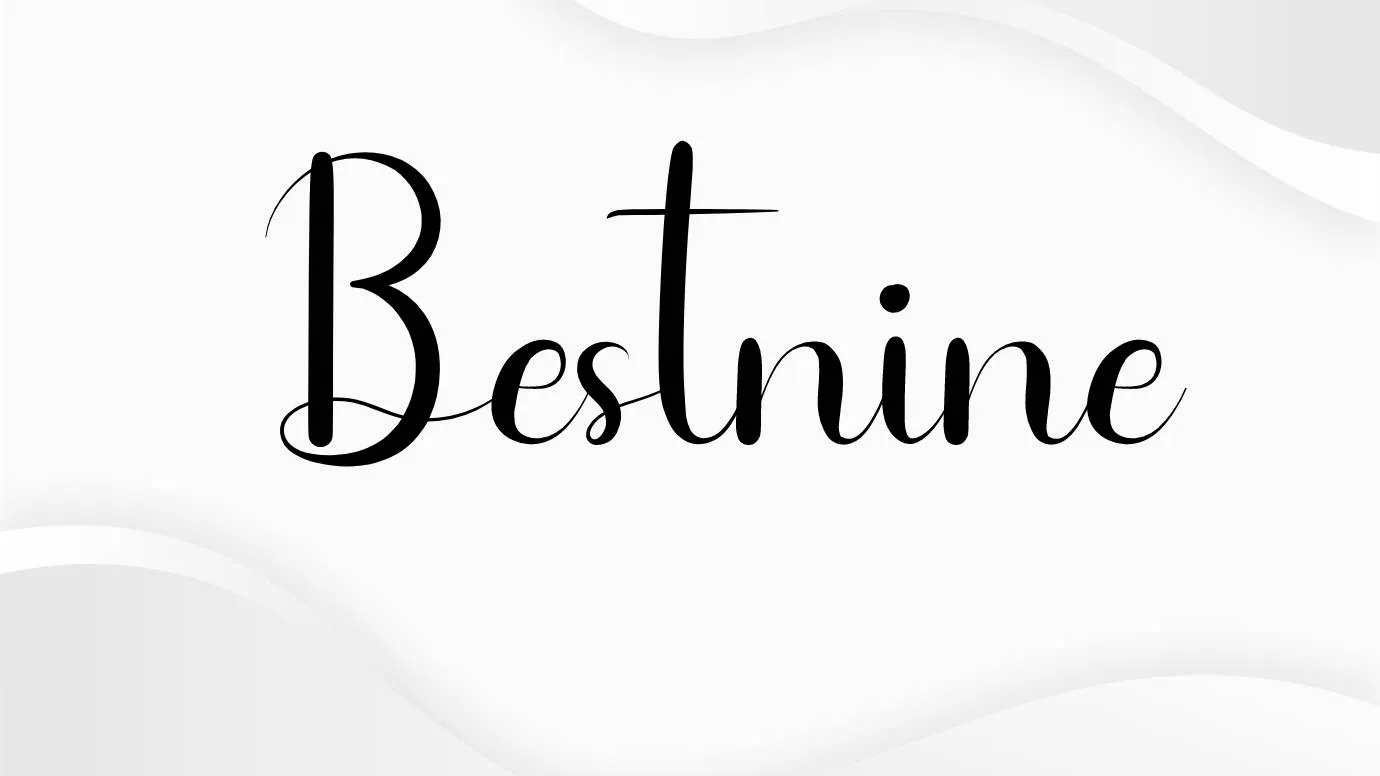
Bestnine Font Family is a great calligraphy font with a lovely appearance. There are 16 different styles in this font, including 8 upright and 8 italics. Basic Latin, Superscripts, Arrows, Box Drawing, Mathematical Operators, and General Punctuations are all included.
This font family offers distinctive qualities that make it appropriate for use in a range of high-caliber creative projects. The glyphs of this font come with 1000 units/em.
TypeCalligraphy
DesignerEdric Studio